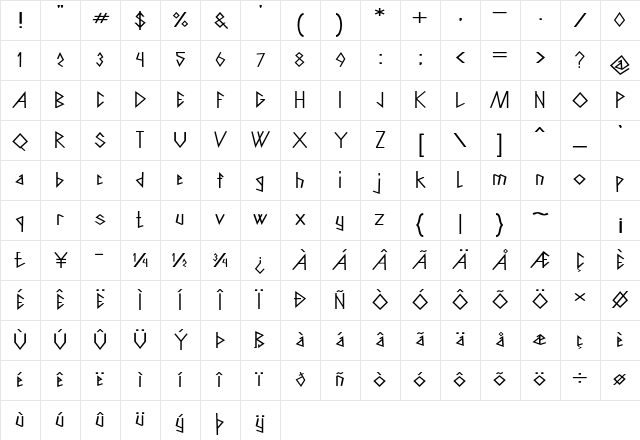
Pantria Expanded Regular
Style: Expanded Regular
Pantria Family
Pantria Expanded Regular
Design Context for Pantria
Pantria is a composed and adaptable typeface that performs quietly and consistently across a wide range of design contexts.